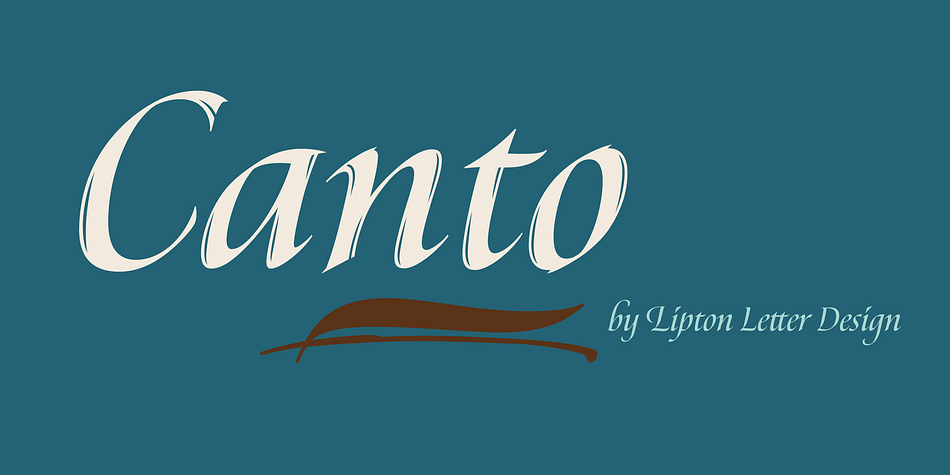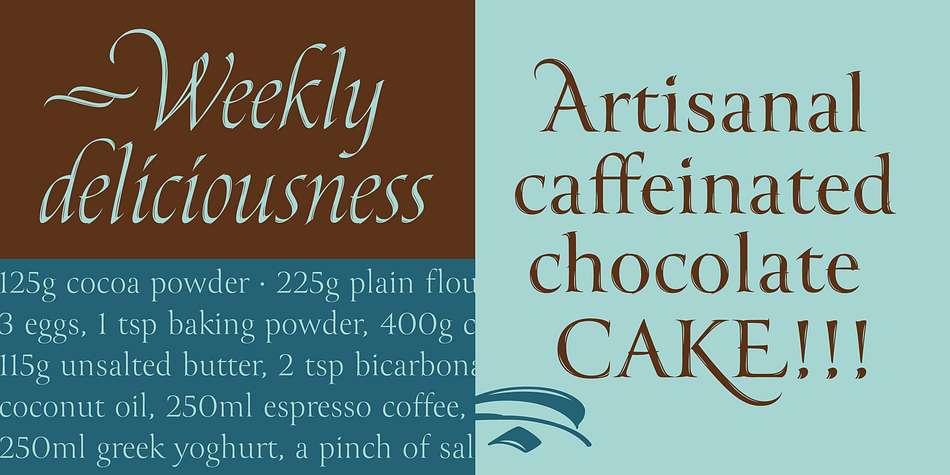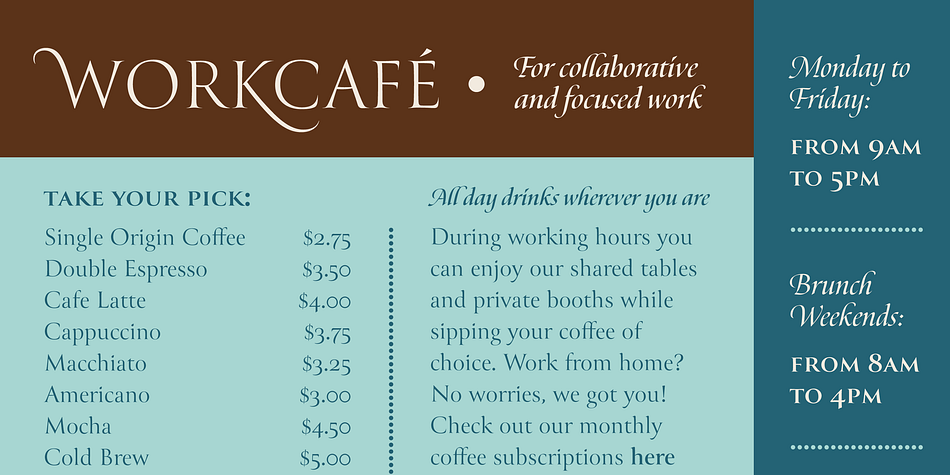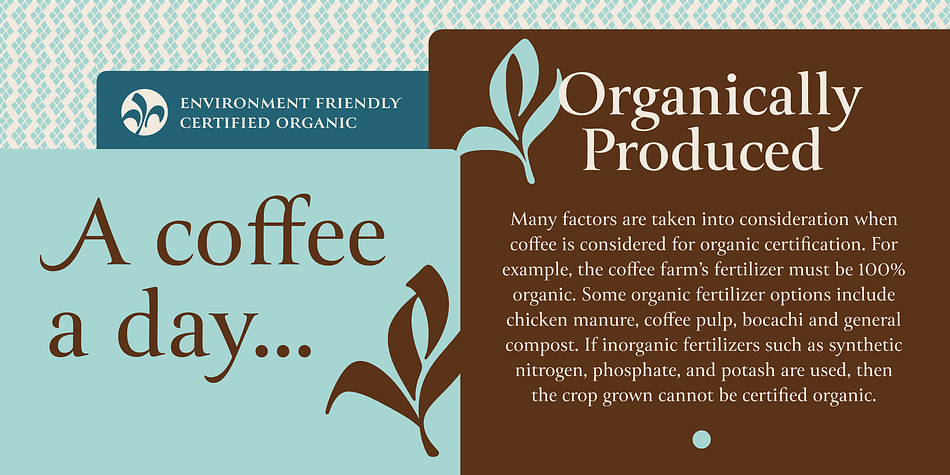
Canto
Designed by Richard Lipton, Canto is a serif font family. This typeface has thirty-two styles and was published by Lipton Letter Design.
Inspired by Edward M. Catich’s seminal thesis on the origins of the Roman inscriptional style, such as that found on Trajan’s column, Richard Lipton’s Canto traces the path from an expressive, preparatory Brush (with Brush Open to preserve gestural details at smaller sizes), through informal Pen, to the formal Roman. Classical capitals are accompanied by Lipton’s own calligraphic lowercase, small caps, and swashes.